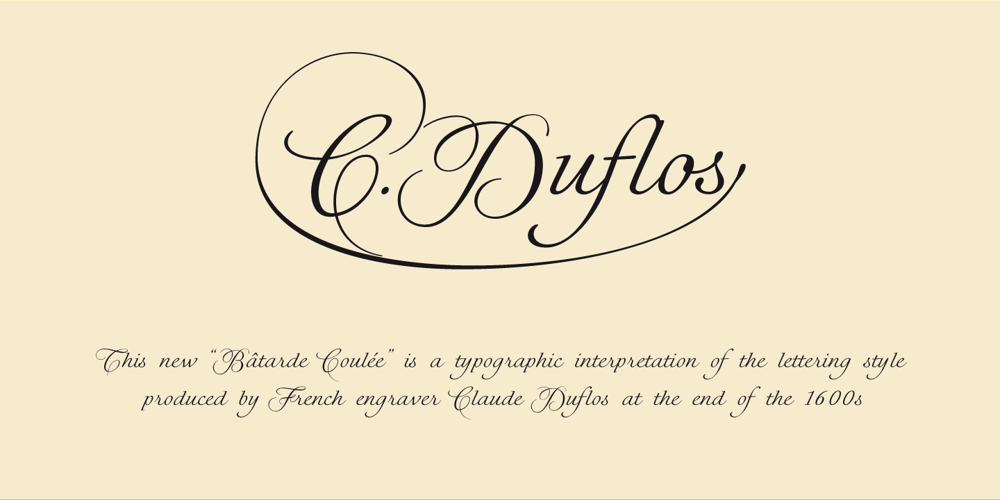
CDuflos Font Family was designed by Olcar Alcaide and published by Eurotypo. CDuflos contains 2 styles and family package options. Claude Duflos was a French engraver and printmaker at the end of the 1600s. He produced a great number of beautiful plates, executed principally with the graver very neatly finished. At the base of his work we can appreciate his legible lettering carefully executed with his particular ductus. During this period three different hands were developed in France: Ronde (an script deriving from “Civilité”), “Lettre Italianne” and Bâtarde Coulée that is a modification of ronde. The hand of joined letters, which lent itself to a rapid writing, became a model for English round hand or copperplate style. CDuflos is our typographic interpretation of the lettering style produced by Claude Duflos. CDuflos is presented in two versions: Basic and Extended Pro, which include diacritics for Central European languages. The Pro version also comes with a set of decorative glyphs including ligatures, alternates and swashes, including terminal letters and a set of ornaments.